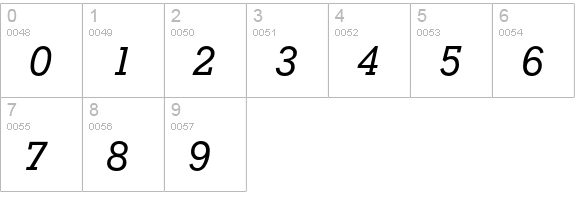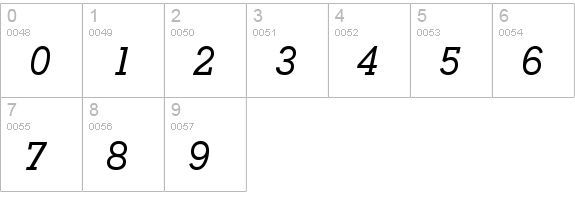
Stymie Medium Italic is a balanced, medium-weight, italic variant in the Stymie typeface family \xE2\x80\x94 well suited to sub-headlines, navigation, and balanced editorial work.
Stymie Medium Italic font exudes elegance and sophistication with its sleek design and modern flair. The italicized style adds a touch of creativity and dynamism to your projects, making it perfect for both professional documents and creative designs. The medium weight strikes the perfect balance between boldness and subtlety, making it versatile for a wide range of applications. What sets Stymie Medium Italic font apart is that it is not only visually stunning but also freely available for download at FontsMarket.com. This means you can elevate your designs without breaking the bank, giving you access to high-quality typography without any cost. Embrace the power of Stymie Medium Italic font to add a touch of sophistication and style to your projects today.